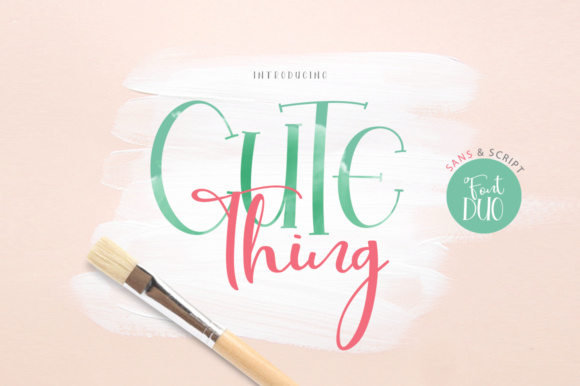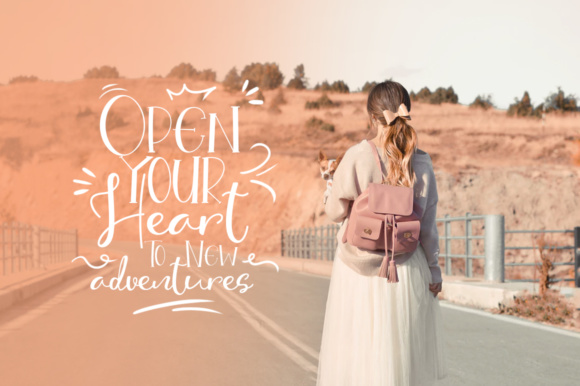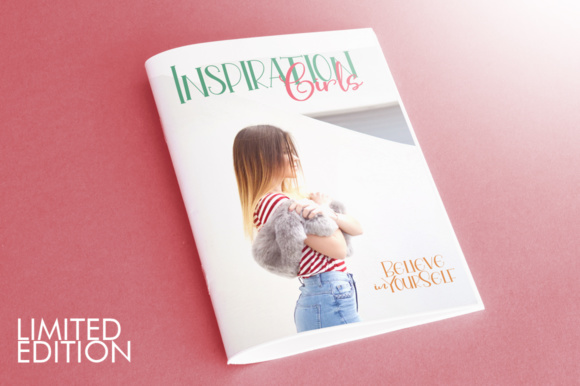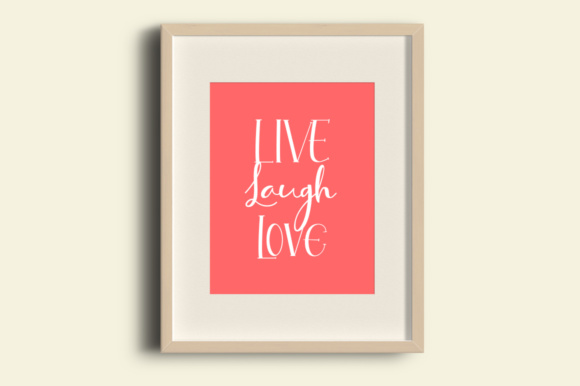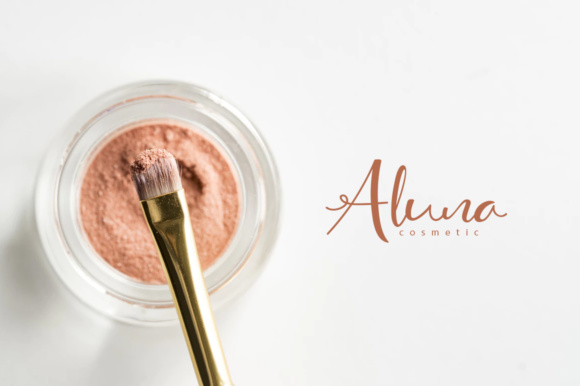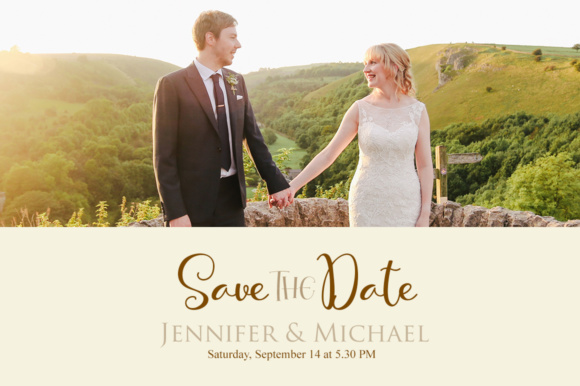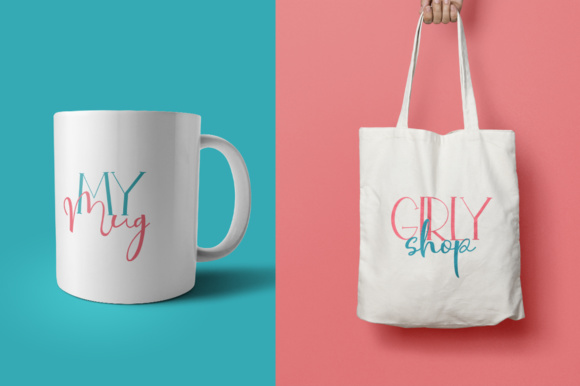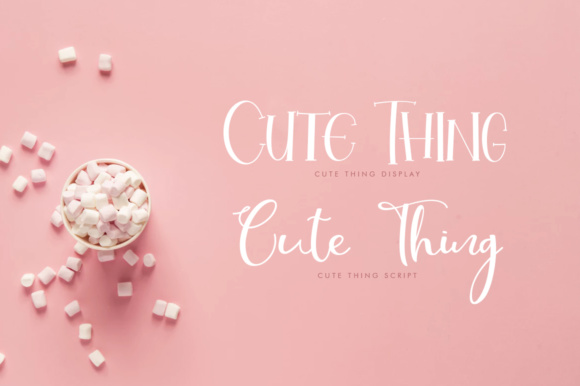
Cute Thing Duo Font
About Cute Thing Duo Font
The Cute Thing is a beautiful font duo. It comes in two weights: script and sans. The script has an elegant handwriting style and the sans has a cute feel.
You can combine the script and sans to get amazing results!